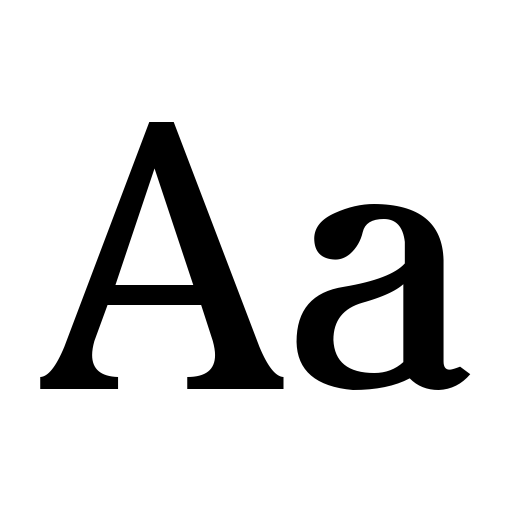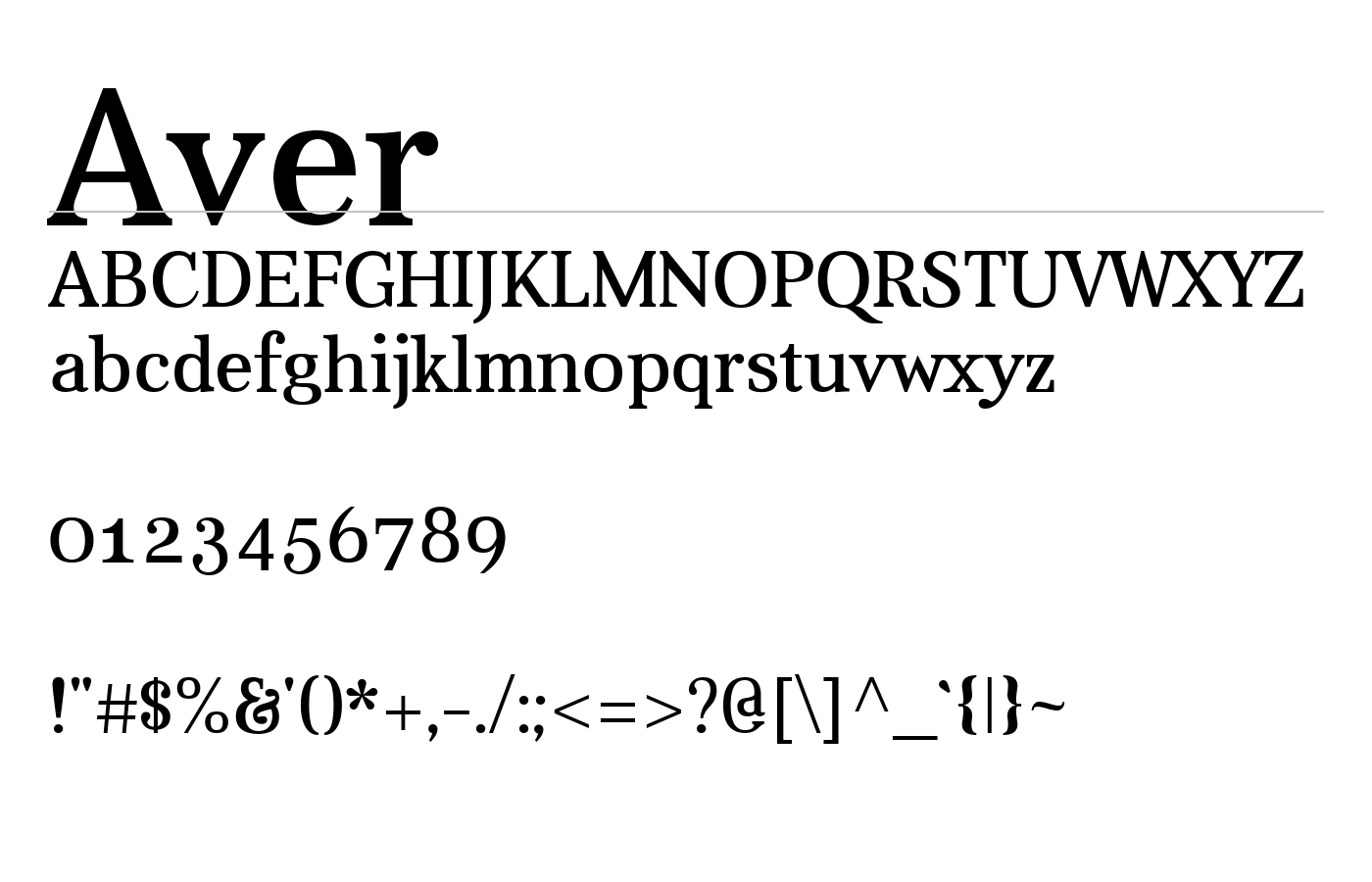
Aver is a refined serif font with a classic yet contemporary feel, featuring medium contrast strokes and sharp, bracketed serifs that give it a sophisticated and readable appearance. Its well-balanced proportions, with a moderate x-height and elegant letterforms including double-story 'a' and 'g', make it versatile for both print and digital use. This font suits editorial design, branding for luxury or traditional businesses, and formal text settings where clarity and style are essential.
Aver Font
About Aver Font
| Font family | Aver Font |
| Designer | Lauren Thompson |